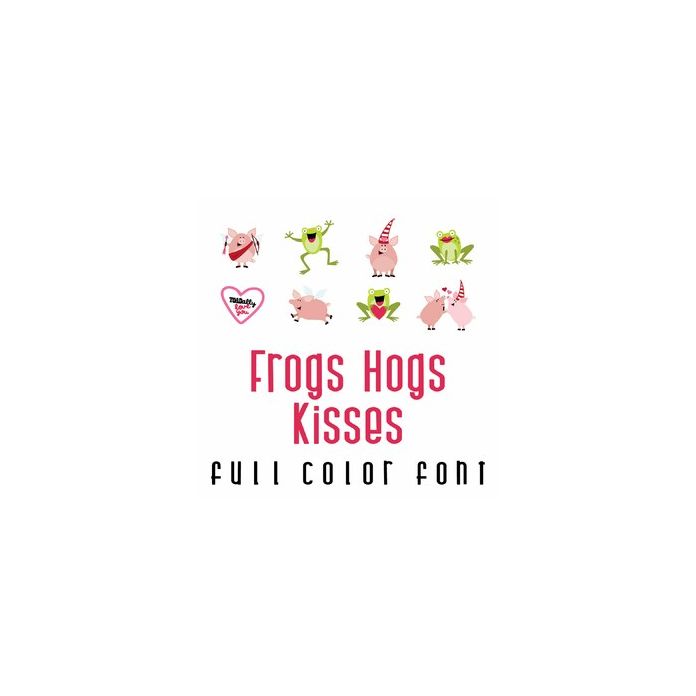
This adorable full-color doodlebat font features 31 cute frogs, hogs, love, kisses and puns. Perfect for cards, crafts, gifts, decor, scrapbook pages, planner stickers, and more! Images are A-Z and 0-4.